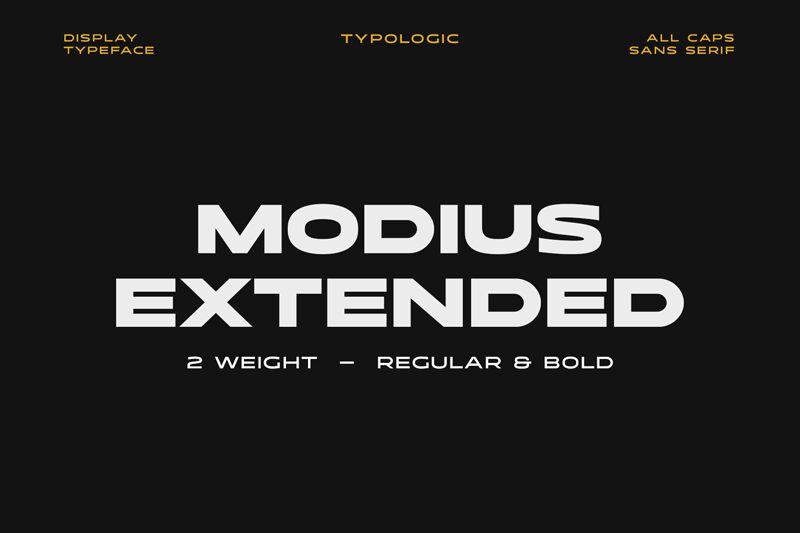
Modius font is an expanded sans serif typeface designed by Typologic.
Introducing modius is an extended custom type that brings both boldness and simplicity. Inspired by a simple and modern urban design style that impresses clearly and loudly if used as headline text.
It consists of two font weights, regular and bold, each carrying a minimalist and strong message. Modius is bold by nature, it always finds space for an elegant touch and a modern display that can be used for streetwear brands, posters, album art, and other typography needs.